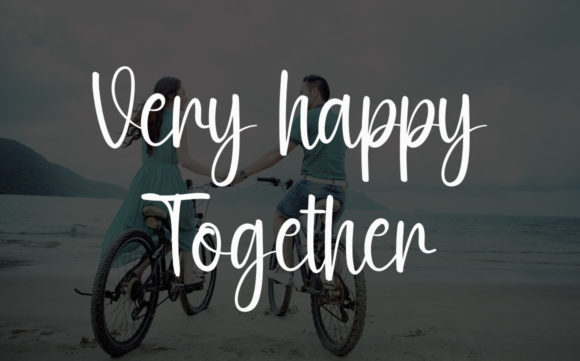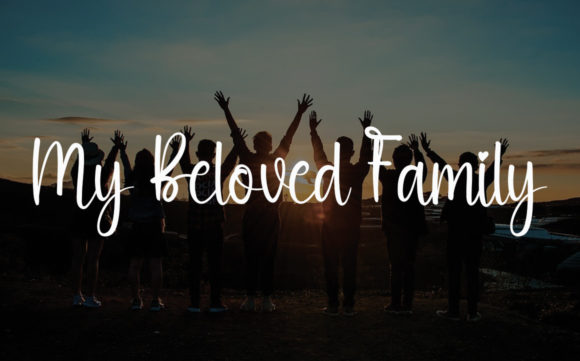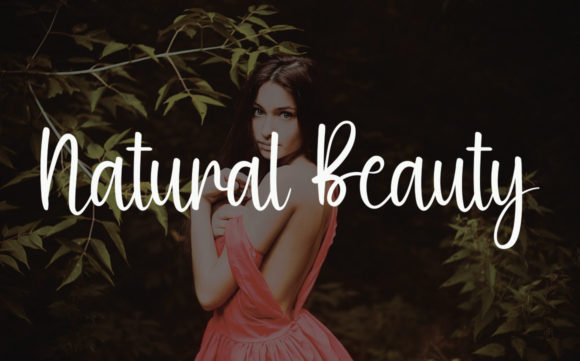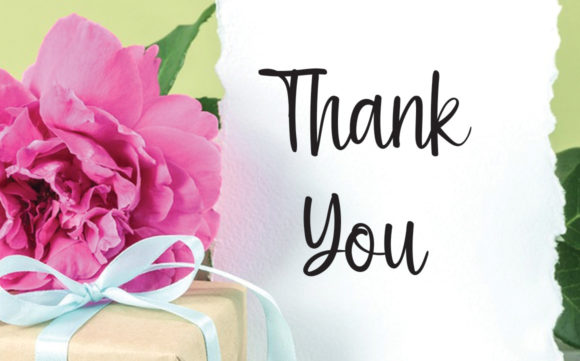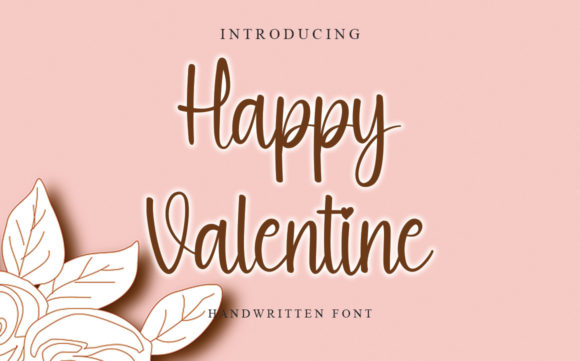
Introducing Happy Valentine Font: The Sweetest Way to Express Your Love
Are you looking for a font that exudes love, care, and romance? Look no further than Happy Valentine Font, a beautiful handwritten font that is sure to make your designs stand out. With its delicate flow and sweet aesthetic, Happy Valentine Font is perfect for a variety of projects, from wall displays and wedding invitations to social media post logos and more.
What Makes Happy Valentine Font So Special?
Happy Valentine Font is a unique and charming font that is designed to add a touch of romance and whimsy to your designs. Its delicate flow and handwritten style give it a personal and intimate feel, making it perfect for projects that require a special touch. Whether you’re a designer, crafter, or DIY enthusiast, Happy Valentine Font is sure to inspire your creativity and help you create something truly special.
Features of Happy Valentine Font
- Sweet and Romantic Aesthetic: Happy Valentine Font features a delicate and romantic aesthetic that is perfect for Valentine’s Day, weddings, anniversaries, and other special occasions.
- Handwritten Style: The font’s handwritten style gives it a personal and intimate feel, making it perfect for projects that require a special touch.
- Delicate Flow: The font’s delicate flow makes it easy to read and beautiful to look at, making it perfect for a variety of design projects.
- Versatile: Happy Valentine Font is versatile and can be used for a variety of projects, from wall displays and wedding invitations to social media post logos and more.
Uses for Happy Valentine Font
Happy Valentine Font is perfect for a variety of projects, including:
- Wedding Invitations: Use Happy Valentine Font to create beautiful and romantic wedding invitations that will set the tone for your special day.
- Wall Displays: Create stunning wall displays with Happy Valentine Font, perfect for Valentine’s Day, weddings, and other special occasions.
- Social Media Post Logos: Use Happy Valentine Font to create eye-catching social media post logos that will make your followers feel special.
- Crafting Projects: Happy Valentine Font is perfect for a variety of crafting projects, from card making and scrapbooking to DIY home decor and more.
Tips for Using Happy Valentine Font
Here are a few tips for using Happy Valentine Font in your designs:
- Pair it with Other Fonts: Happy Valentine Font pairs well with other fonts, so don’t be afraid to experiment and find the perfect combination for your design.
- Use it in Combination with Images: Use Happy Valentine Font in combination with images to create stunning visual effects and add an extra touch of romance to your designs.
- Experiment with Colors: Happy Valentine Font looks beautiful in a variety of colors, so don’t be afraid to experiment and find the perfect color scheme for your design.
Happy Valentine Font is a beautiful and romantic handwritten font that is perfect for a variety of design projects. With its delicate flow and sweet aesthetic, it’s sure to add a touch of love and care to your designs. Whether you’re a designer, crafter, or DIY enthusiast, Happy Valentine Font is a must-have font that is sure to inspire your creativity and help you create something truly special.